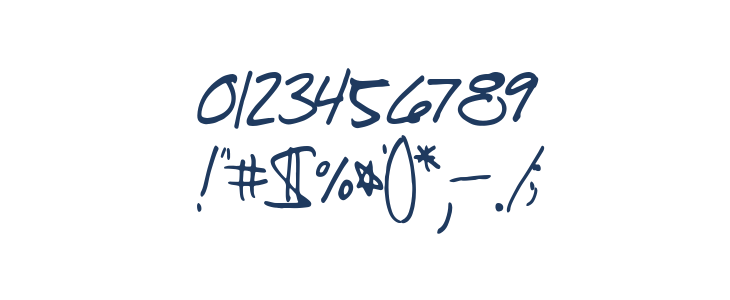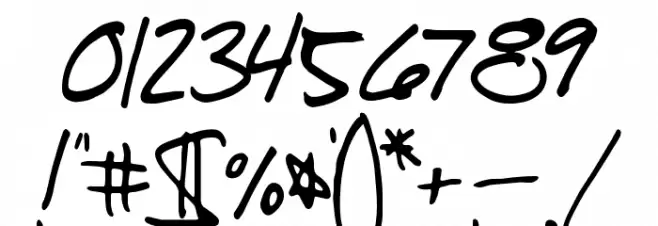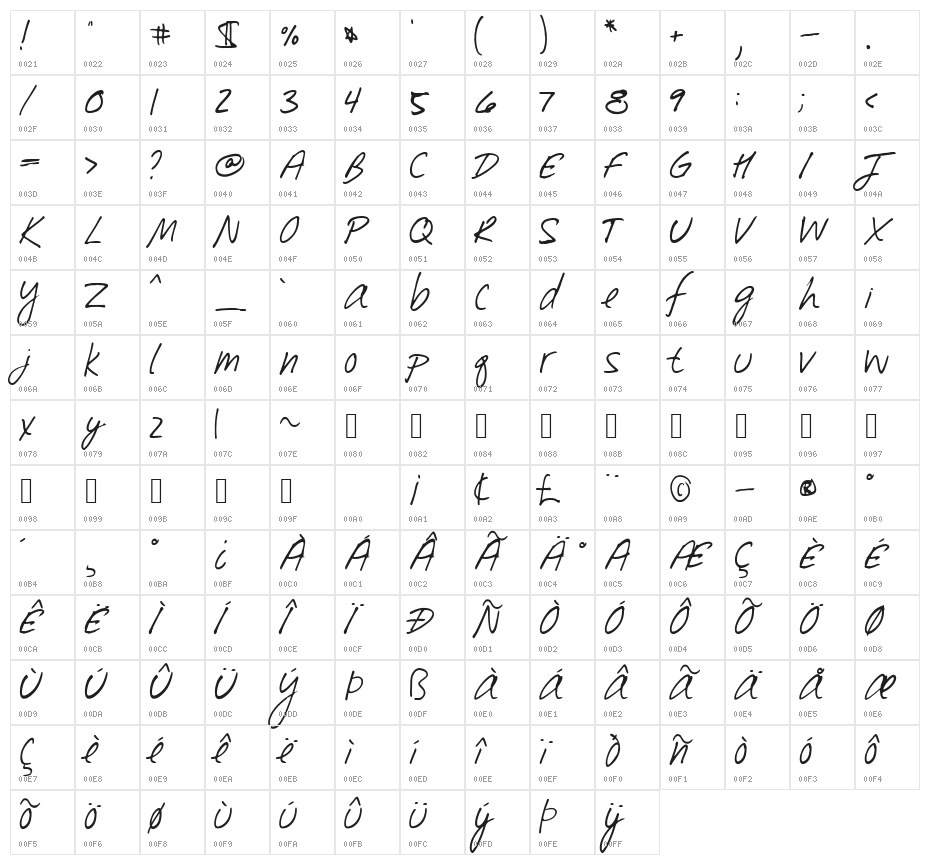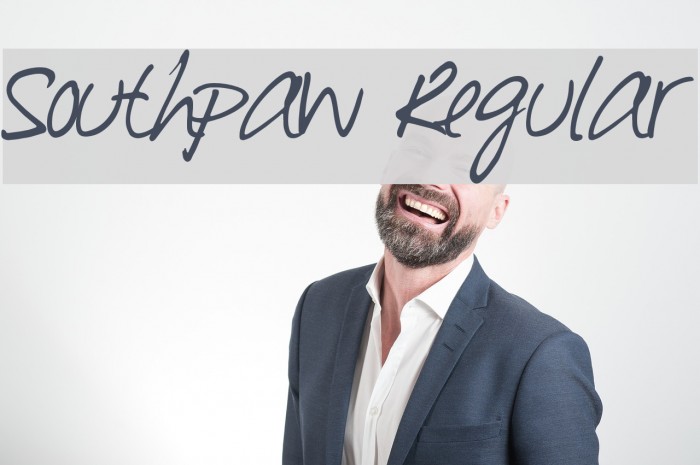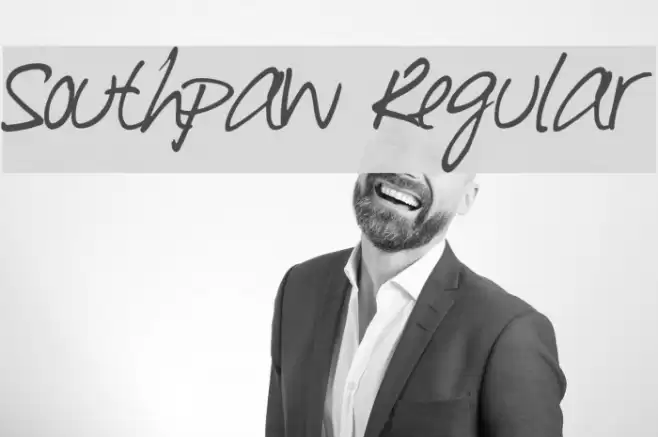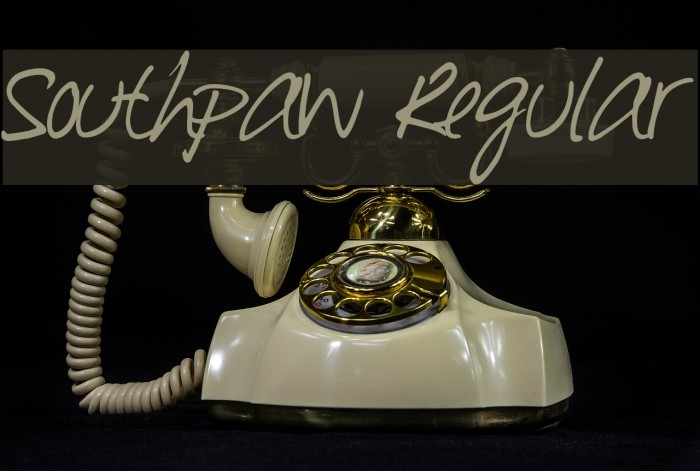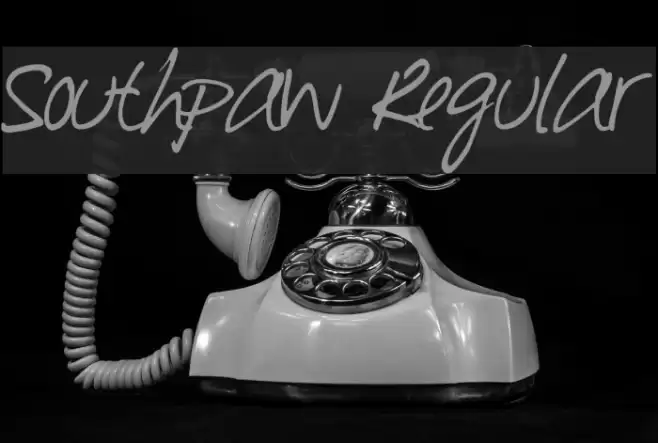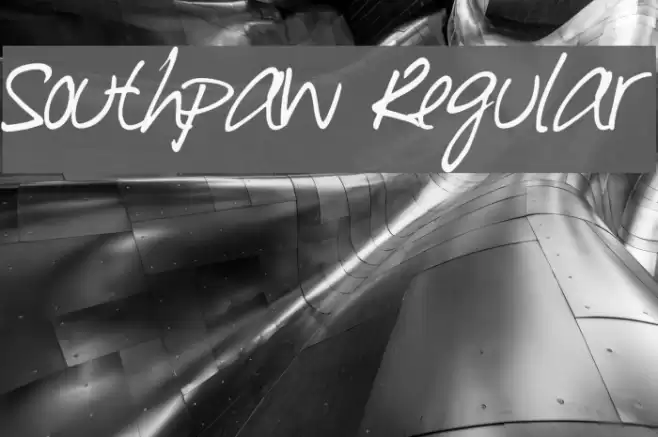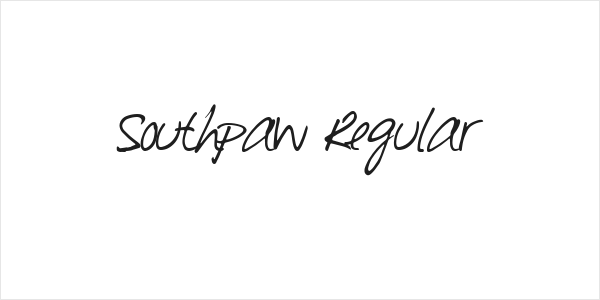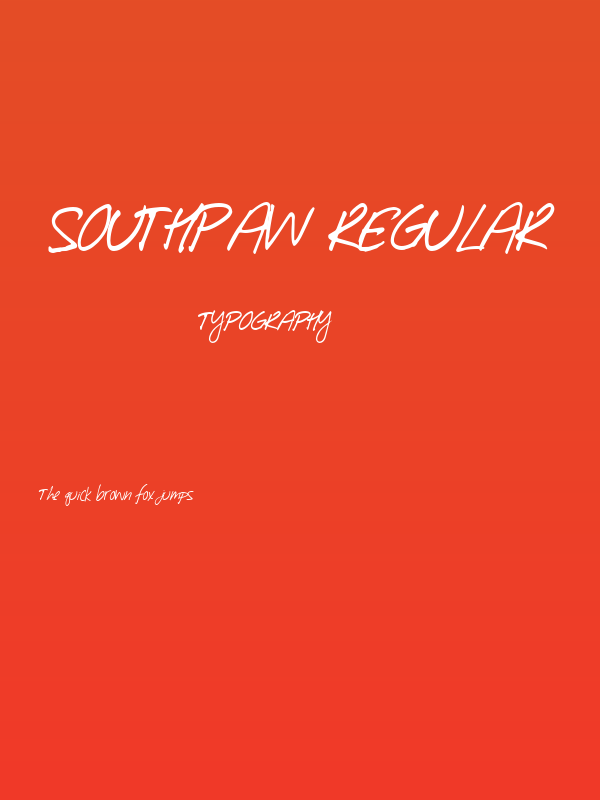
Southpaw Regular Font
Southpaw Regular Description
This font features a dynamic, handwritten style that exudes a sense of energy and spontaneity. The characters are fluid and slightly slanted, giving the impression of quick, expressive writing. The uppercase and lowercase letters maintain a consistent flow, with rounded edges and varying stroke widths that add to its organic feel. Numbers and special characters are crafted with the same lively touch, ensuring a cohesive look across all elements. The overall appearance is casual yet stylish, making it suitable for projects that require a personal, human touch.
| Overall Style | Casual, Expressive |
| Proposed Projects | Ideal for personal branding, greeting cards, social media graphics, and informal invitations. |